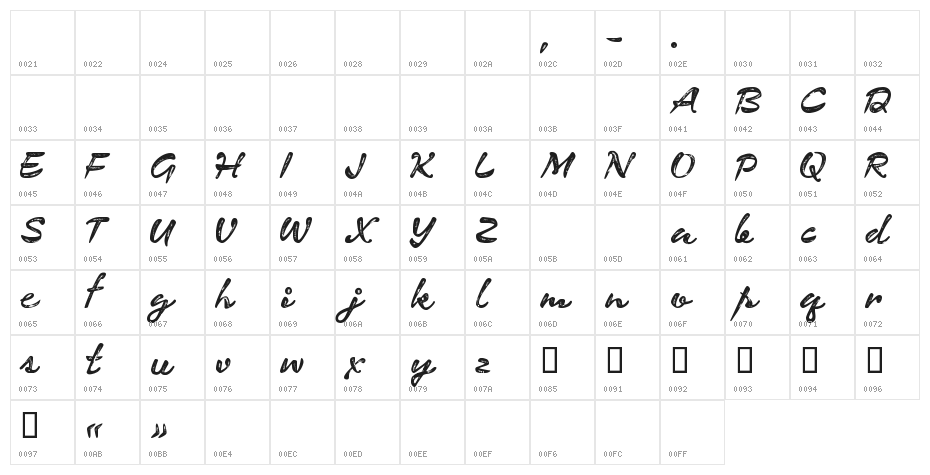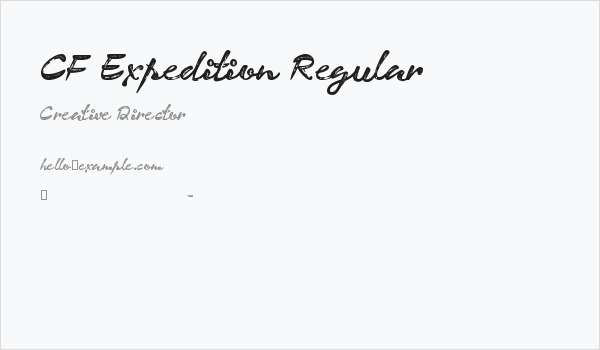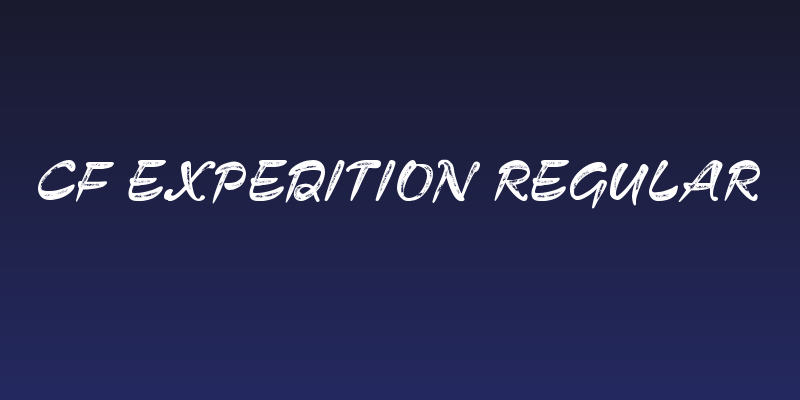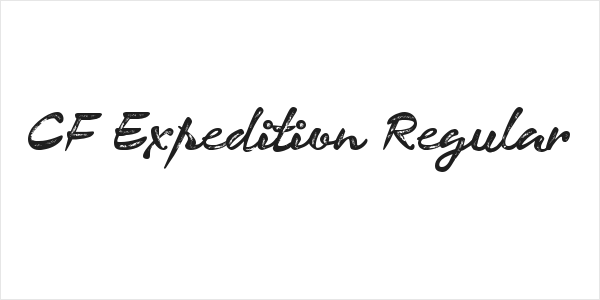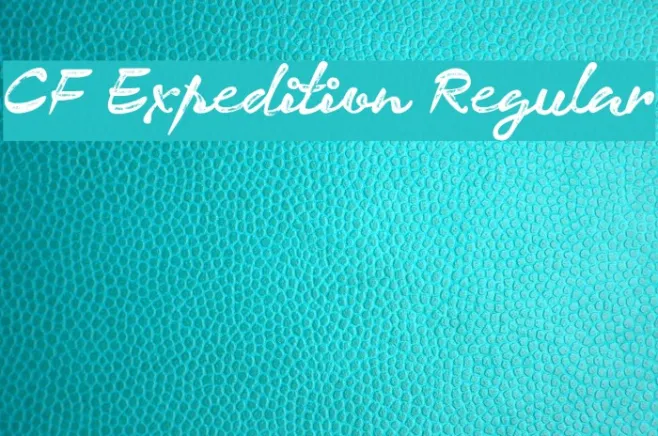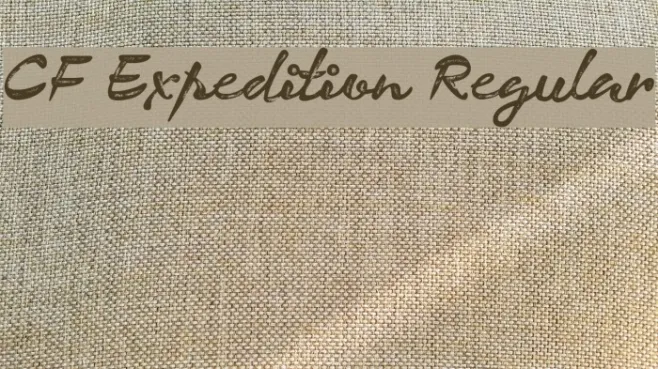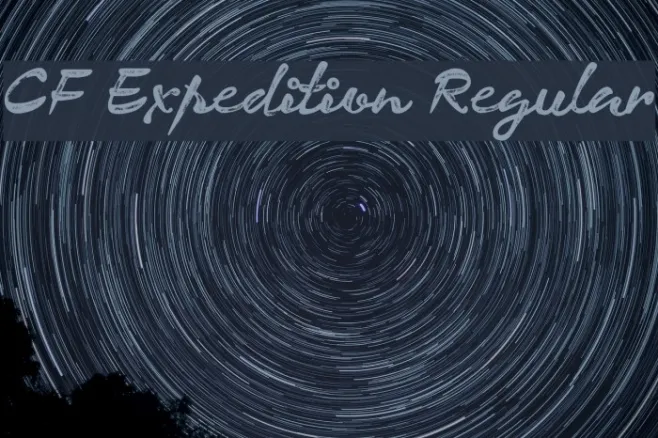
CF Expedition Regular Font
CF Expedition Regular Description
This font features a bold and dynamic script style with a textured, distressed appearance. The characters are connected, giving it a handwritten feel, while the rough edges and irregularities add a rugged, adventurous quality. The uppercase letters are slightly larger and more prominent, while the lowercase letters maintain a consistent flow. The numbers and special characters follow the same stylistic approach, ensuring uniformity across all elements. This font's unique texture and style make it stand out, offering a blend of elegance and edginess.
| Proposed Projects | Ideal for branding projects, adventure-themed posters, and creative packaging designs. |